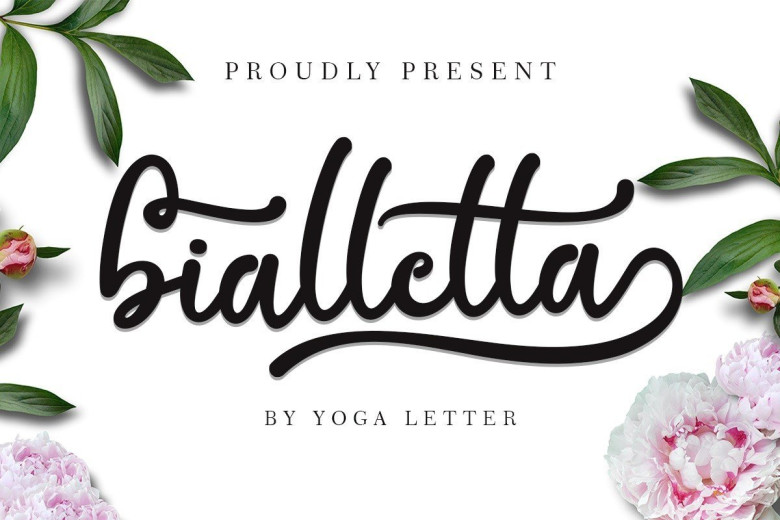
Bialletta Bold Calligraphy Script Font
Bialletta bold calligraphy script font has a classy, elegant, and modern look, every single letters have been carefully crafted to make your text looks beautiful. With modern script style this font will perfect for many different project ex: quotes, blog header, poster, wedding, branding, logo, fashion, apparel, letter, invitation, stationery, etc.